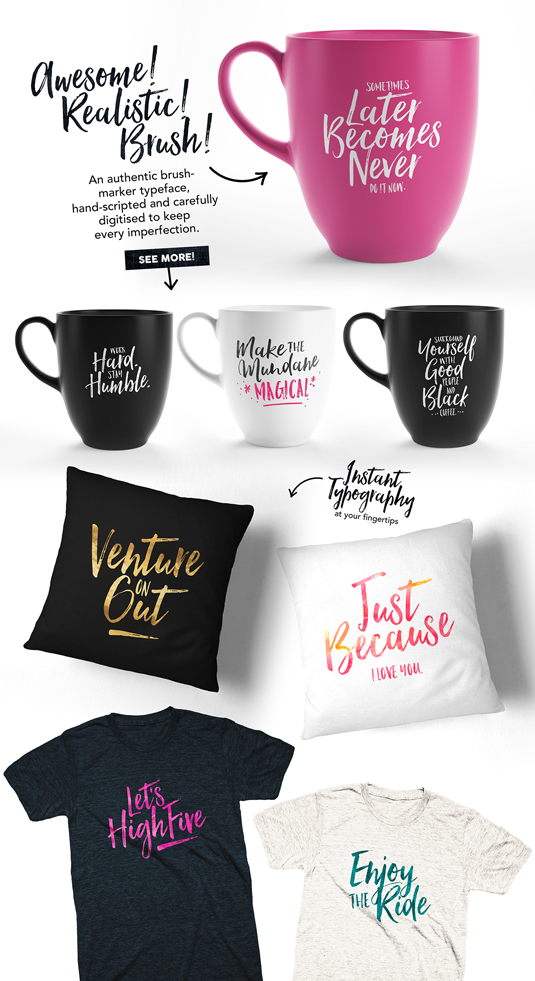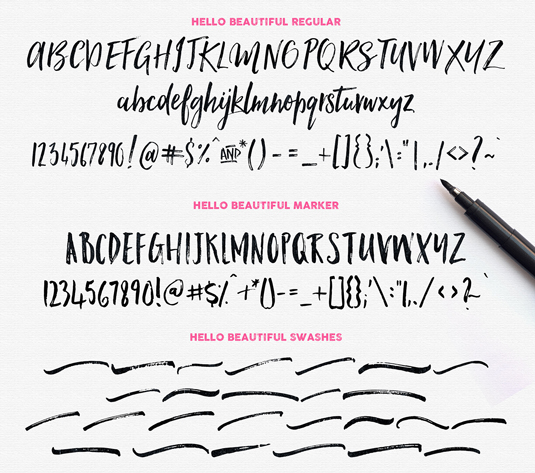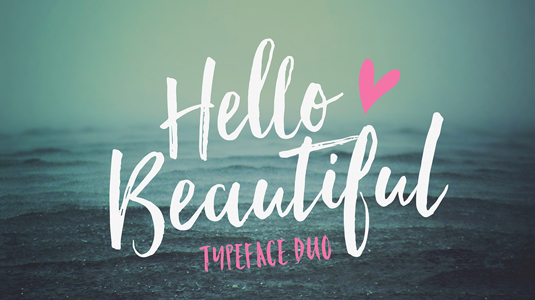
Font of the day: Hello Beautiful
Hello Beautiful by Nicky Laatz
Hello Beautiful is a duo of hand-scripted fonts, carefully created by designer Nicky Laatz. Available in regular and marker versions, Hello Beautiful is great for giving any design that authentic handdrawn feel.